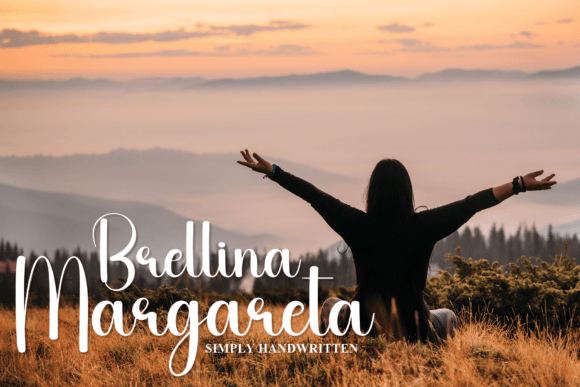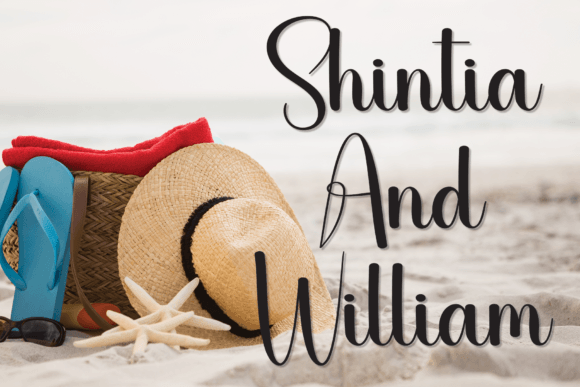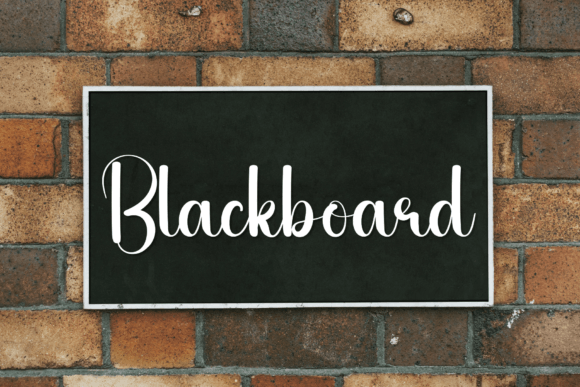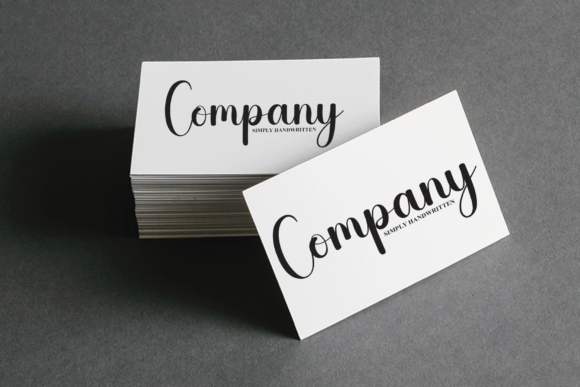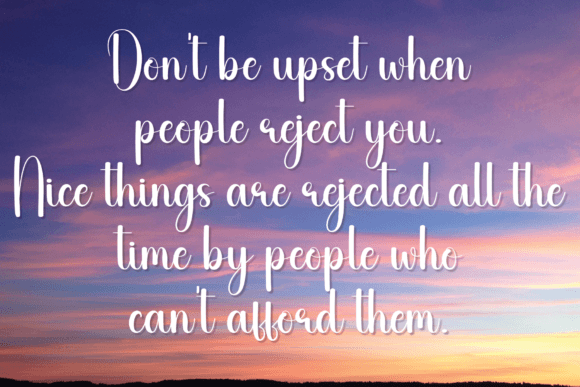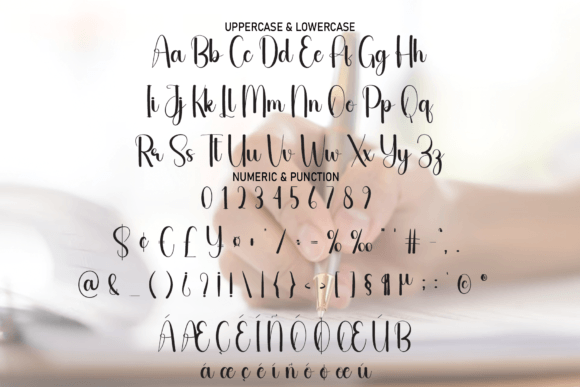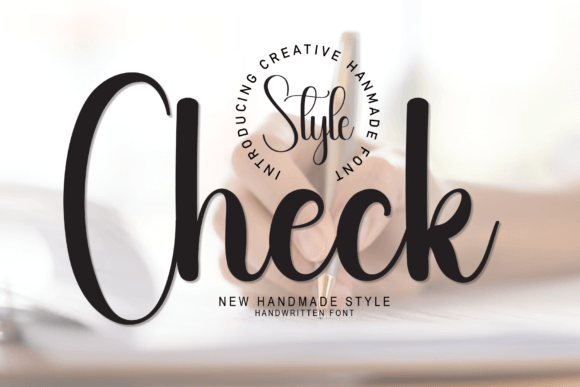
Introducing Check Font: The Ultimate Handwritten Font for Creative Projects
Are you tired of using the same old fonts for your creative projects? Look no further! Check Font is a neat and casual handwritten font that’s about to take your designs to the next level. With its incredible versatility, Check Font is suitable for a wide spectrum of applications, making it a must-have for designers and crafters alike.
The Characteristics of Check Font
Check Font boasts a unique and charming handwritten style that’s perfect for adding a personal touch to your designs. Its neat and casual appearance makes it easy to read and understand, ensuring that your message gets across clearly. The font’s versatility is one of its standout features, allowing you to use it for a variety of projects, from:
• Logos and branding
• Posters and flyers
• Invitations and greeting cards
• Packaging and product labels
Why Choose Check Font?
So, what sets Check Font apart from other fonts? Here are just a few reasons why you should consider adding it to your font collection:
• Unique and eye-catching: Check Font’s handwritten style adds a touch of personality to your designs, making them stand out from the crowd.
• Easy to read: The font’s clear and legible design ensures that your message gets across quickly and easily.
• Versatile: Check Font can be used for a wide range of projects, from formal to informal, and is suitable for both digital and print applications.
• Easy to pair: Check Font pairs well with a variety of other fonts, making it easy to create stunning font combinations.
Tips for Using Check Font
Now that you’re excited about Check Font, here are some tips to help you get the most out of this amazing font:
• Use it for headings and titles: Check Font’s bold and playful style makes it perfect for headings and titles.
• Mix it with other fonts: Experiment with pairing Check Font with other fonts to create unique and eye-catching combinations.
• Adjust the size and color: Play around with different sizes and colors to add emphasis and create visual interest.
• Use it for digital and print projects: Check Font is suitable for both digital and print applications, making it a great addition to your font collection.
In conclusion, Check Font is an incredible handwritten font that’s perfect for designers and crafters looking to add a personal touch to their creative projects. With its unique and eye-catching style, ease of use, and versatility, Check Font is sure to become a staple in your font collection. So why wait? Add Check Font to your creative toolkit today and watch your designs come to life!
Get Creative with Check Font
Ready to unleash your creativity with Check Font? Here are some ideas to get you started:
• Create a stunning logo or brand identity for your business
• Design a beautiful poster or flyer for your next event
• Develop a cohesive social media strategy with eye-catching graphics
• Make a lasting impression with custom invitations or greeting cards
• Stand out on store shelves with unique packaging and product labels
With Check Font, the possibilities are endless! So go ahead, get creative, and see what amazing designs you can come up with using this incredible handwritten font.